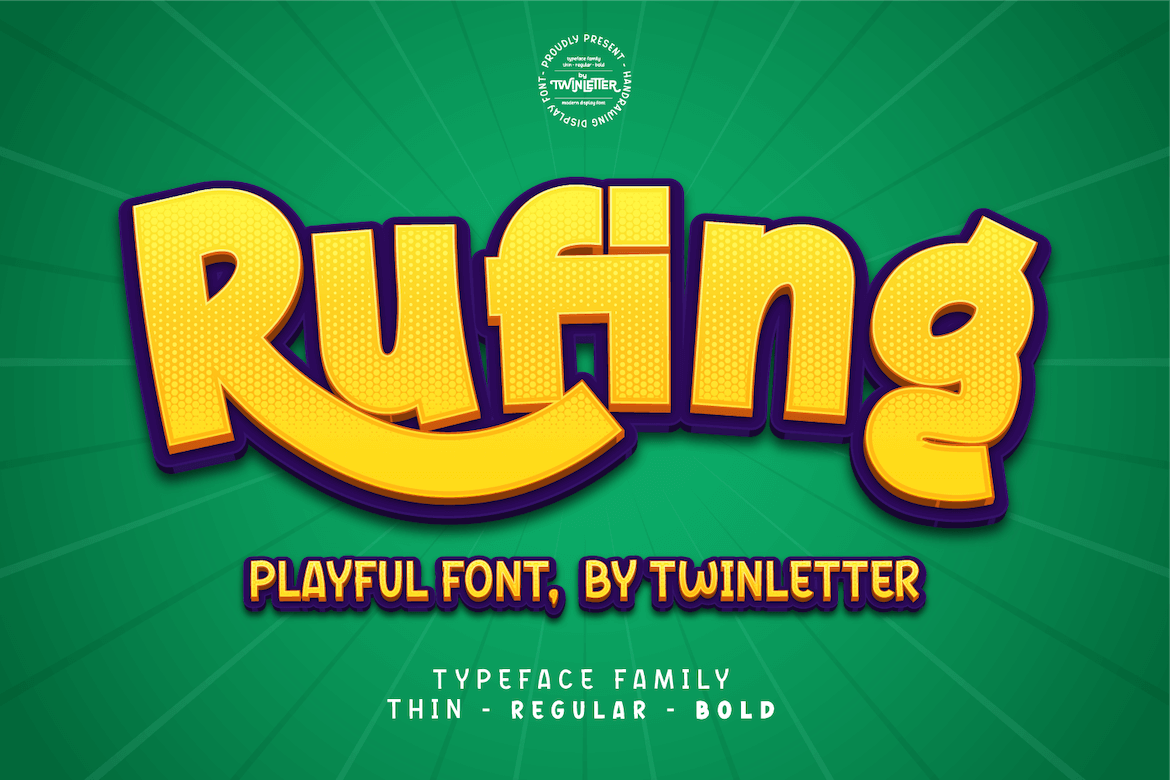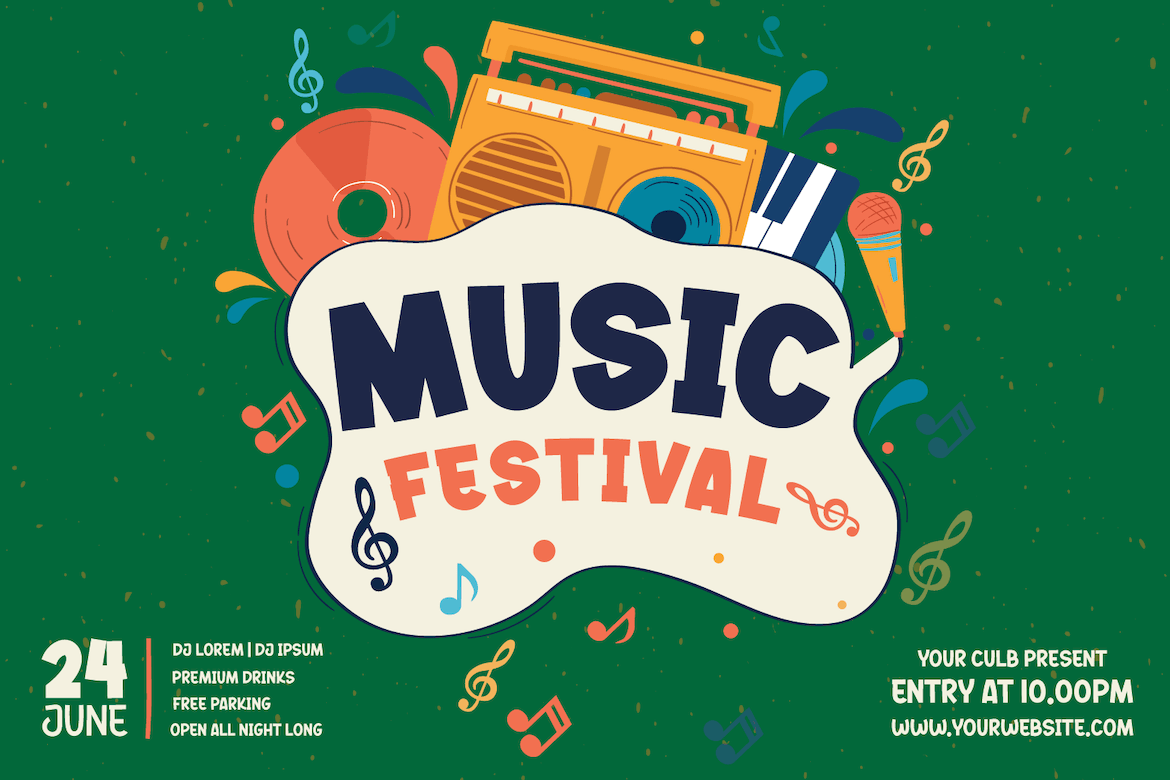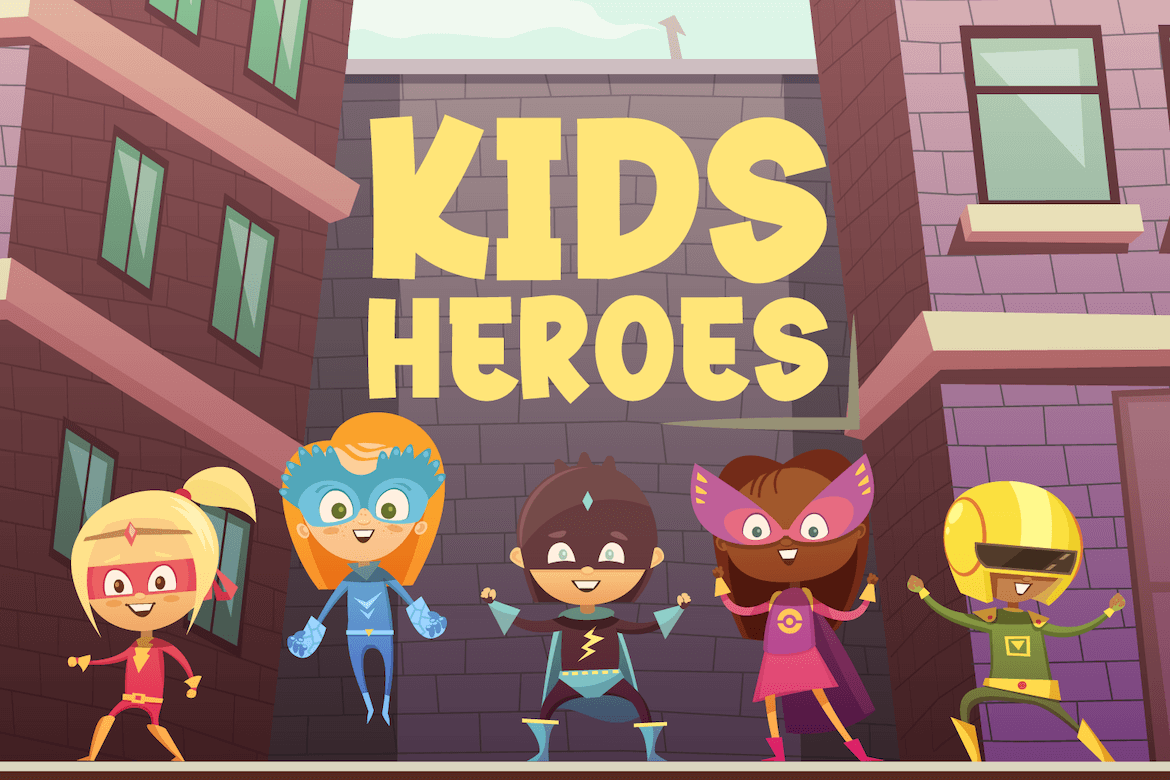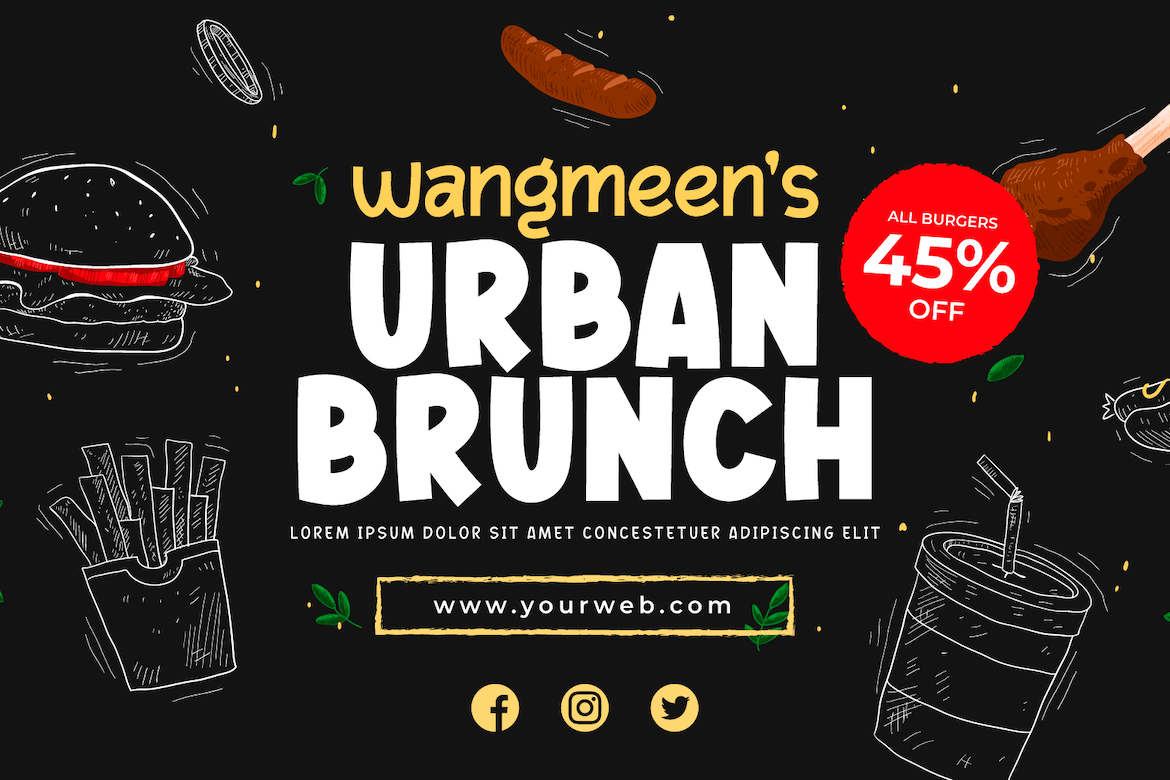
Rufing Font
Rufing Display Font
This is a playful and cartoon like display font. It embodies joy authenticity and is the perfect choice for any children activity or school project.